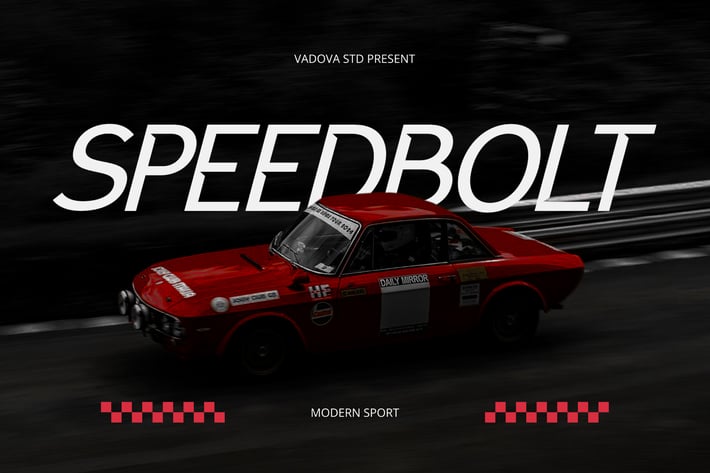
Speedbolt Modern Sport Font
Speedbolt Modern Sport Font is a dynamic, modern italic sans-serif typeface designed to capture the essence of speed and excitement. Its energetic and forward-leaning style is perfect for conveying motion and power. This font's intended market vibe is strongly associated with sports branding, automotive design, racing events, action-oriented gaming, and high-energy marketing campaigns. The letterforms are characterized by their distinctive italic slant, sharp edges, and streamlined appearance, exuding a sense of velocity. Speedbolt is best used for bold headlines, impactful logos, athletic apparel branding, and digital displays where speed is paramount.
Speedbolt Modern Sport Font Suitable for Sports branding, automotive design, racing event posters, athletic apparel, gaming interfaces, action movie titles, event promotion, fitness product packaging, e-sports logos, extreme sports marketing, car rally graphics, tech company branding, dynamic website headers, social media challenges, concert visuals, adventurous travel promotions, energy drink labels, competitive team branding, digital billboards, speed-related app design.